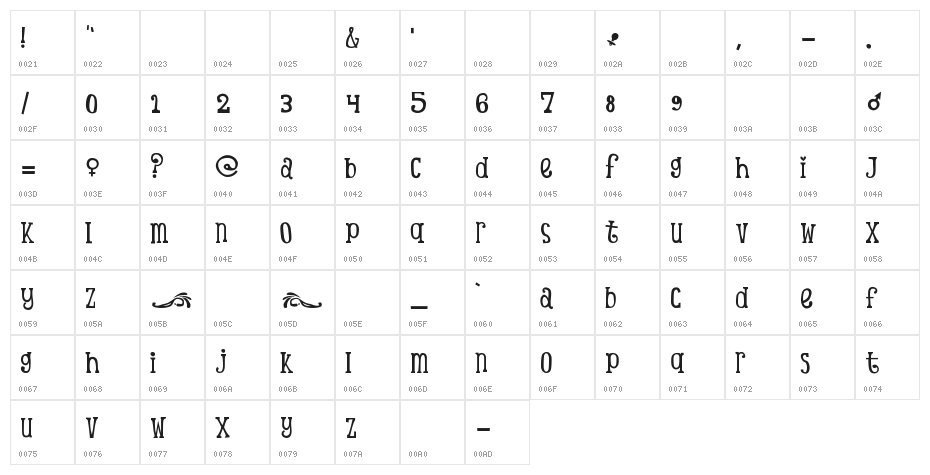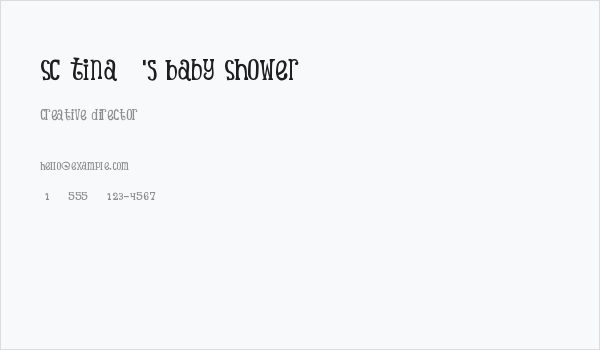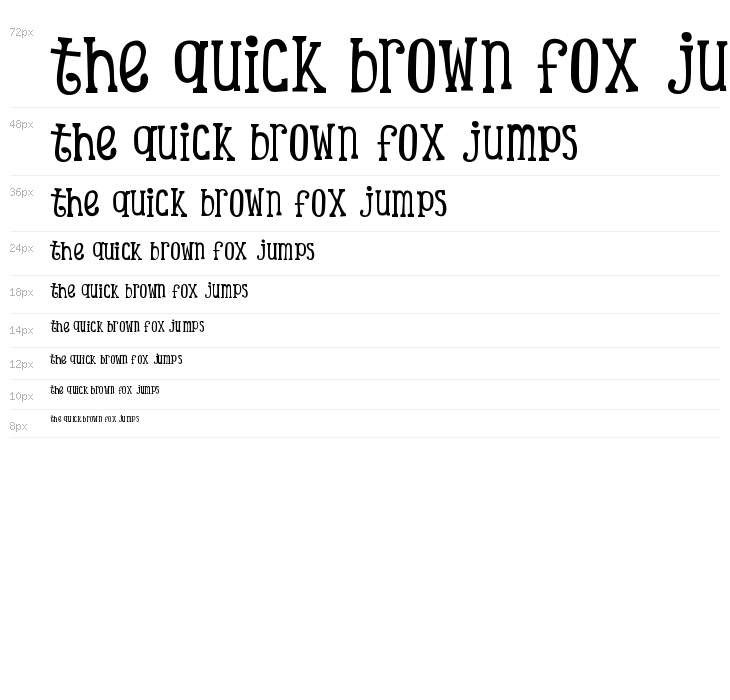
SC Tina's Baby Shower Font
SC Tina's Baby Shower Description
This font features a playful and whimsical design with a unique blend of bold and slender strokes. The uppercase letters are characterized by their tall and narrow form, while the lowercase letters exhibit a charming, slightly rounded appearance. The numerals are bold and consistent, providing a strong visual impact. Special characters are creatively styled, adding to the font's overall decorative appeal. The font's distinctive style makes it suitable for projects that require a touch of fun and creativity.
| Overall Style | Playful and whimsical |
| Proposed Projects | Ideal for children's book covers, playful invitations, greeting cards, and creative branding projects. |